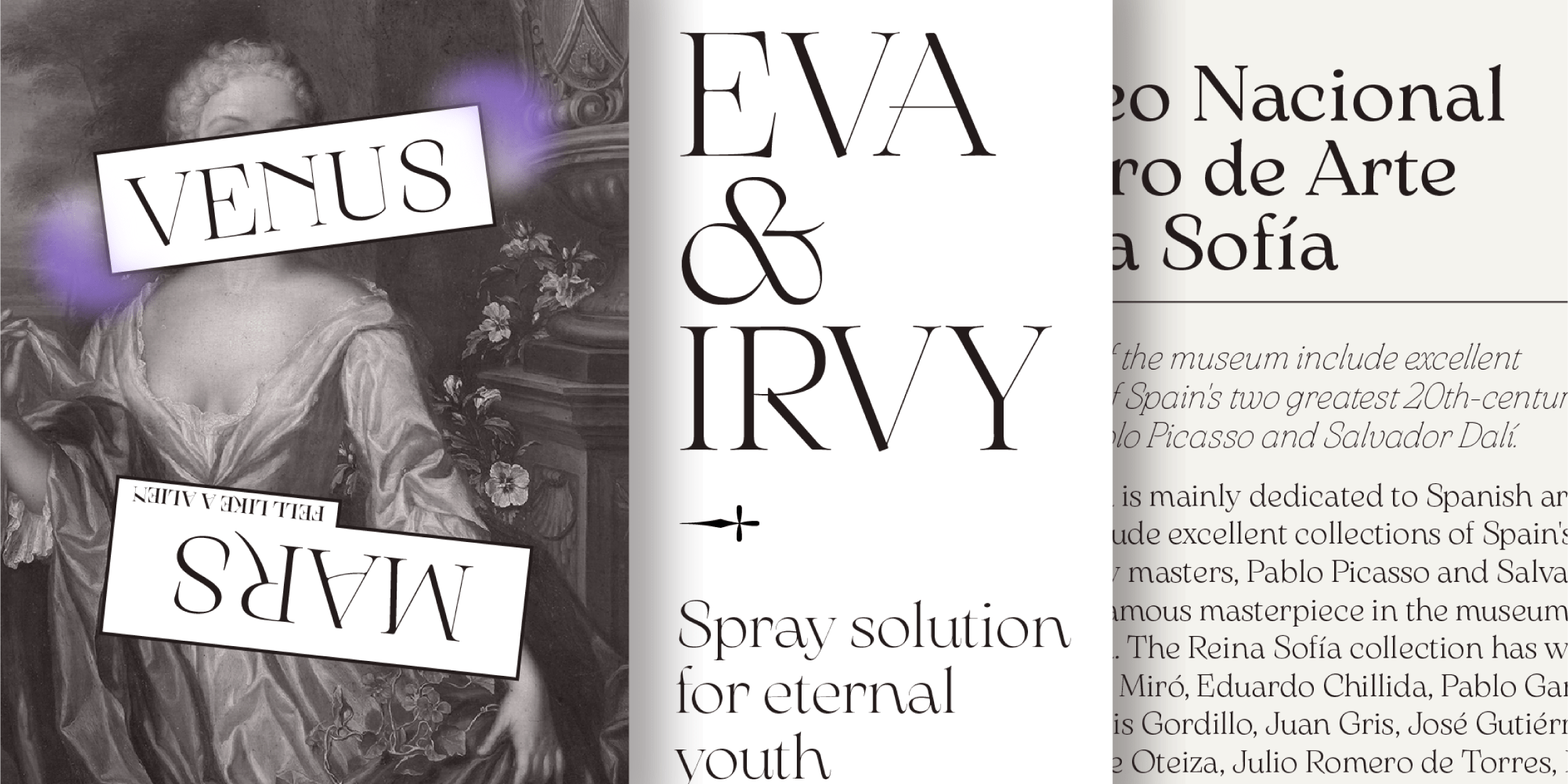
Arsenica Text
Arsenica is inspired by early 20th-century Italian poster design. It includes the low-contrast, wide-proportioned Arsenica Antiqua, the high-contrast Arsenica Display with bold and light weights and the modernized Arsenica Alternate, alongside Arsenica Text for readability in long body copy. This superfamily comprises over 900 glyphs, and supports 200+ languages with extensive OpenType features